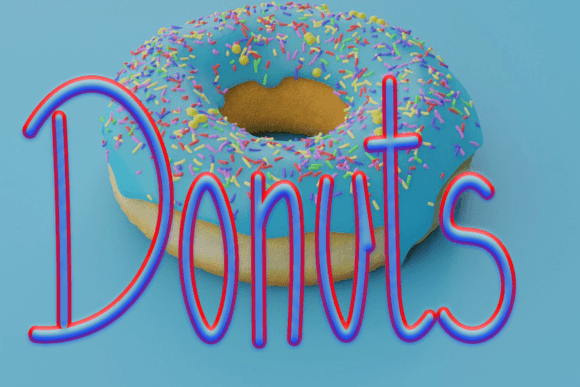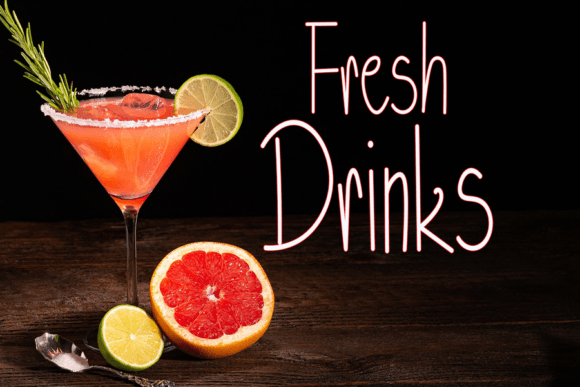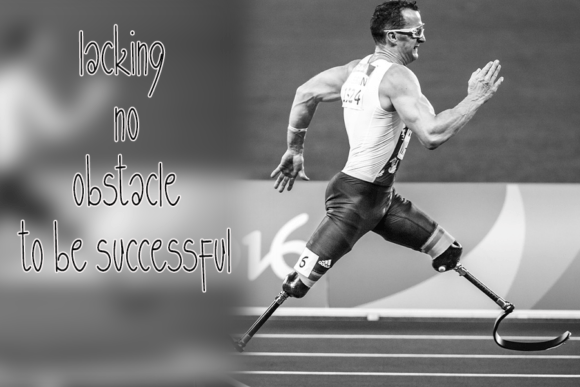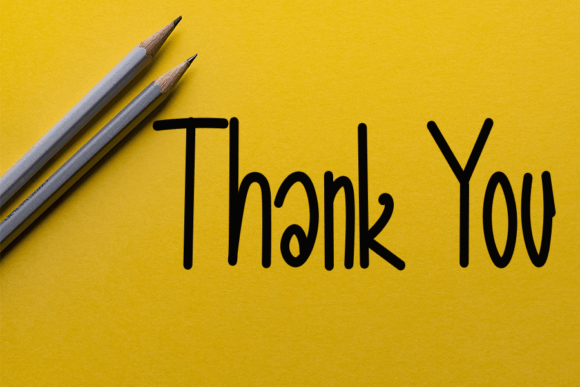
Introducing Explorer Font: Elevate Your Designs with a Joyful Script Font
Are you tired of using the same old fonts in your designs? Look no further! We’re excited to introduce Explorer Font, a joyful script font that’s sure to take your creations to the next level. With its playful and elegant style, Explorer Font is perfect for designers and crafters looking to add a touch of personality to their work.
What is Explorer Font?
Explorer Font is a beautiful script font that’s designed to bring a sense of joy and wonder to your designs. Its flowing lines and curly details make it perfect for creating eye-catching titles, headings, and quotes. Whether you’re working on a branding project, a craft tutorial, or a social media graphic, Explorer Font is sure to add a touch of magic to your work.
Why Use Explorer Font?
So why choose Explorer Font over other fonts out there? Here are just a few reasons why we’re obsessed with this lovely freebie:
- Unique and Playful Style: Explorer Font has a one-of-a-kind style that’s sure to make your designs stand out from the crowd. Its playful and curly details add a touch of whimsy to any project.
- Elegant and Sophisticated: Despite its playful nature, Explorer Font is also elegant and sophisticated, making it perfect for more formal designs, such as wedding invitations, business cards, and luxury branding.
- Easy to Read: Explorer Font is designed to be easy to read, even at smaller sizes. This makes it perfect for body text, captions, and other applications where legibility is key.
How to Use Explorer Font in Your Designs
So now that you know a little bit about Explorer Font, let’s talk about how to use it in your designs. Here are a few ideas to get you started:
- Create Eye-Catching Titles and Headings: Use Explorer Font to create bold and eye-catching titles and headings that draw attention to your content.
- Add a Personal Touch to Your Crafts: If you’re a crafter, use Explorer Font to add a personal touch to your projects, such as handmade cards, gift tags, and scrapbook pages.
- Elevate Your Branding: If you’re a business owner or entrepreneur, use Explorer Font to elevate your branding and marketing materials, such as business cards, brochures, and social media graphics.
Tips and Tricks for Getting the Most Out of Explorer Font
Here are a few tips and tricks for getting the most out of Explorer Font:
- Experiment with Different Sizes and Colors: Don’t be afraid to experiment with different sizes and colors of Explorer Font to find the perfect combination for your design.
- Pair it with Other Fonts: Explorer Font pairs well with a variety of other fonts, so don’t be afraid to get creative and try out different combinations.
- Use it to Create Visual Hierarchy: Use Explorer Font to create a visual hierarchy in your design, with headings and titles standing out from the rest of the content.
In conclusion, Explorer Font is a joyful script font that’s sure to elevate your designs and take them to the next level. With its unique and playful style, elegant and sophisticated vibe, and ease of use, Explorer Font is perfect for designers and crafters of all levels. So why wait? Download Explorer Font today and start creating spectacular designs that bring your ideas to life!